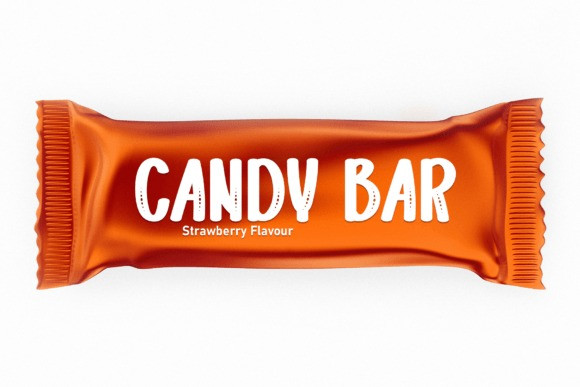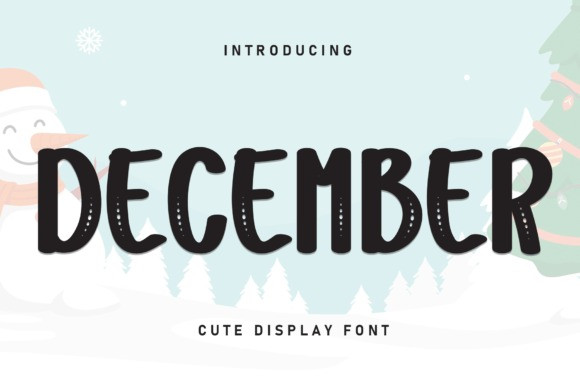
December Playful Font
December Playful Font is a sweet and friendly handwritten display font. Versatile and cute, this font is ideal for writing wedding invitations, cards, or any other design that might need a fun touch!